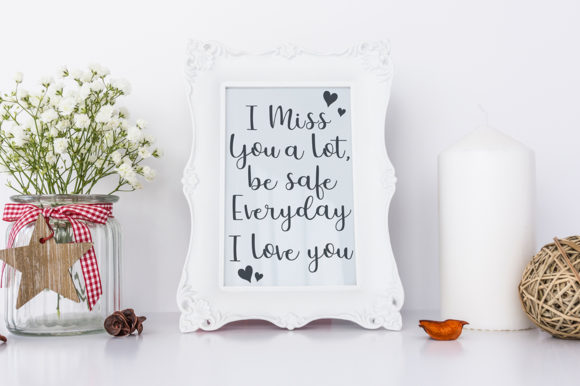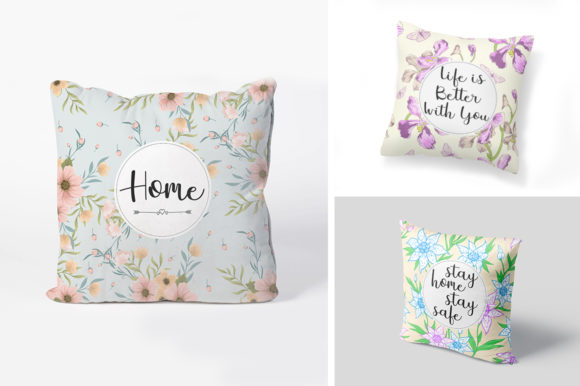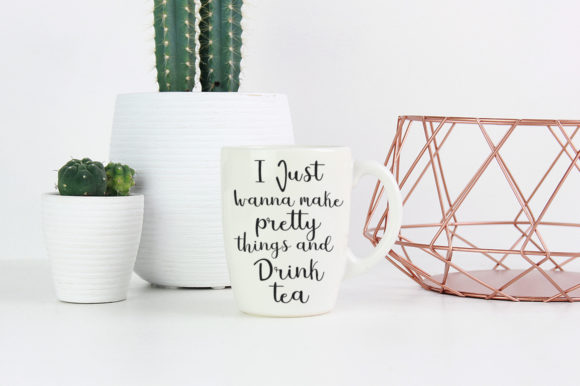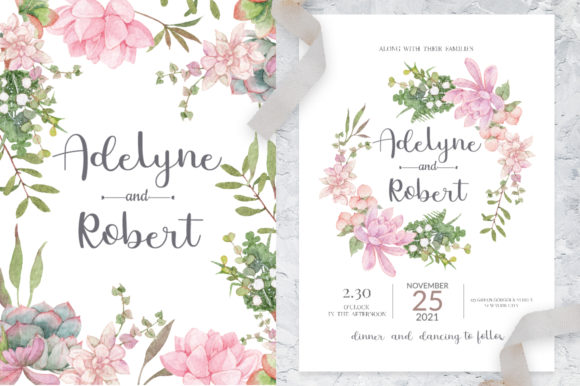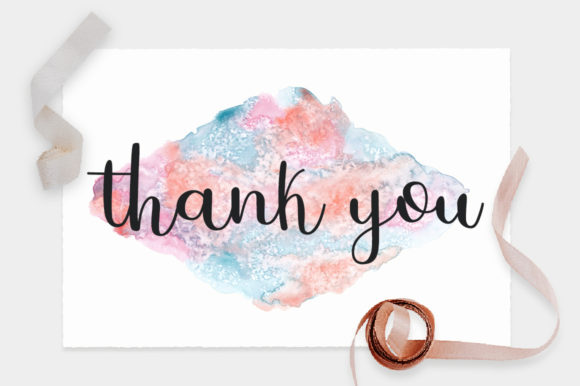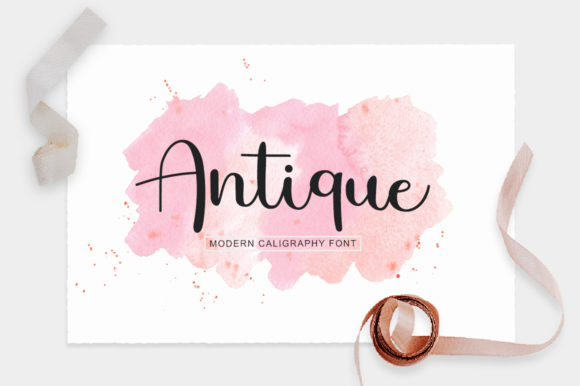
The Charm of Antique Font: A Designer’s Delight
I still remember the day I stumbled upon the Antique font while working on a wedding invitation project for a client. I had tried countless fonts, but none seemed to capture the essence of a vintage, hand-written feel. That’s when I fell in love with Antique – a sweet, soft hand-lettered font that instantly transported me to a bygone era. In this article, I’ll share my experience with Antique, its features, and how to make the most of it in your design projects.
An Honest Review of Antique Font
What I Love About Antique Font
- ✨ Authentic feel: Antique font has a unique, hand-crafted look that adds a touch of warmth to any design project.
- ✅ Versatility: It’s perfect for a wide range of applications, from wedding invitations and stationery to social media posts and greeting cards.
- 💕 Elegant and whimsical: The font strikes a beautiful balance between elegance and playfulness, making it suitable for various design styles.
While Antique font is a gem, it’s not without its quirks. Here are a few things to keep in mind:
- 🤔 Limited character set: Some users have reported that the font may not have an extensive character set, which can limit its use in certain projects.
- ⚠️ Not suitable for body text: Due to its decorative nature, Antique font is best used for headlines, titles, or short paragraphs, rather than body text.
A Practical Guide to Using Antique Font
The Designer Inspiration Behind Antique Font
Although the origins of Antique font are unclear, it’s likely that it was inspired by traditional hand-lettering techniques and vintage typography. The font’s creator aimed to capture the essence of a bygone era, when handwritten letters and invitations were a norm. The result is a font that exudes warmth, elegance, and a touch of whimsy.
Q: What type of projects is Antique font best suited for?
A: Antique font is perfect for wedding invitations, stationery, social media posts, greeting cards, and other design projects that require a touch of elegance and whimsy.
Q: Is Antique font available in different styles or weights?
A: The standard version of Antique font may not have multiple styles or weights. However, some font variations or similar fonts may offer additional styles or weights.
Q: Can I use Antique font for body text?
A: While Antique font is beautiful, it’s best used for headlines, titles, or short paragraphs. Its decorative nature makes it less suitable for body text.